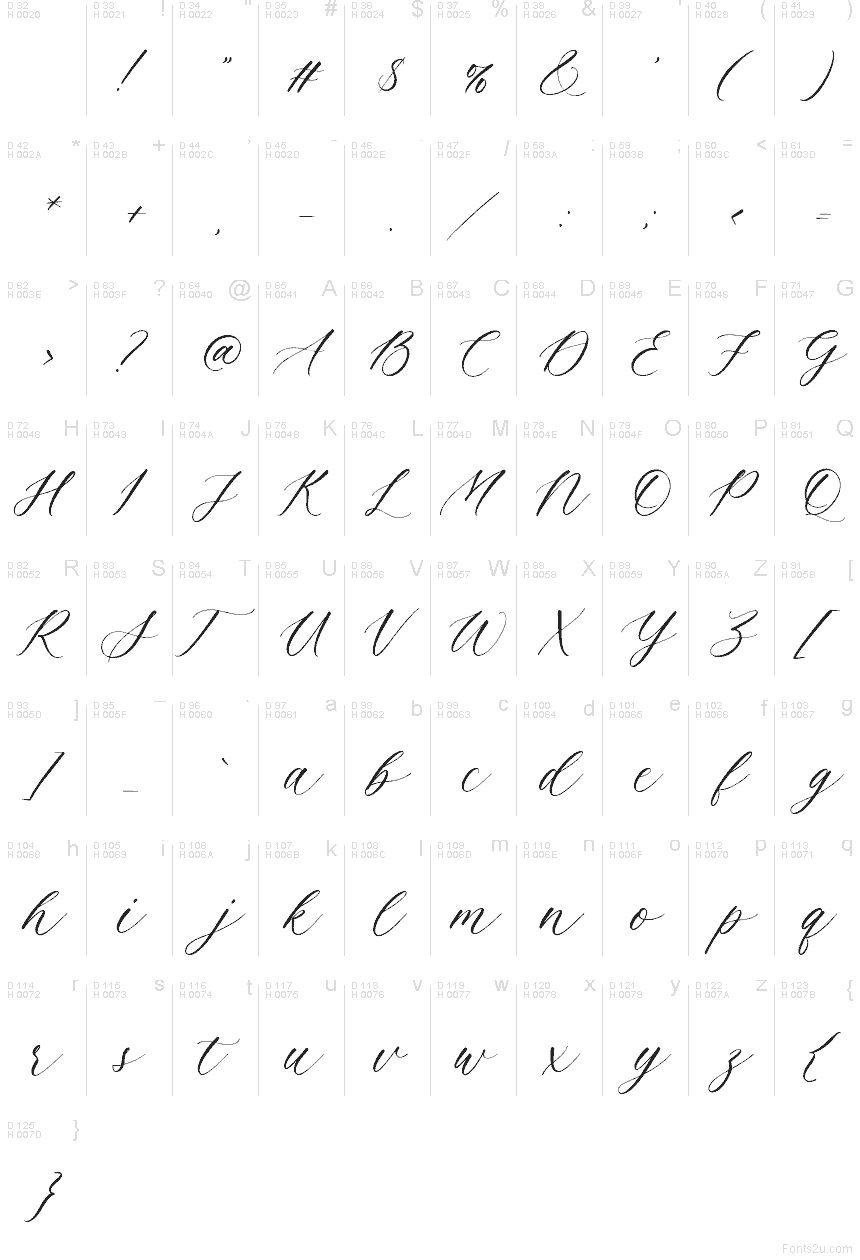
BelovedSandra-Regular
Beloved Sandra font by Lunas Type is a free calligraphy typeface with a soft, handwritten elegance that feels like ink gliding across fine stationery. Its long, looping strokes and gentle slant give each word a romantic, windswept rhythm, while the thin lines keep it airy and refined rather than overdone. There’s a natural, pen-on-paper irregularity here that adds warmth and intimacy to names, signatures, and short phrases.
Using Beloved Sandra, your text instantly takes on a personal, keepsake quality that shines on wedding invitations, save-the-dates, bridal shower stationery, boutique logos, perfume and skincare packaging, and graceful social media quotes. This free font works beautifully when you let it breathe—set it large for names or key phrases, then pair it with a clean sans serif for the supporting details.